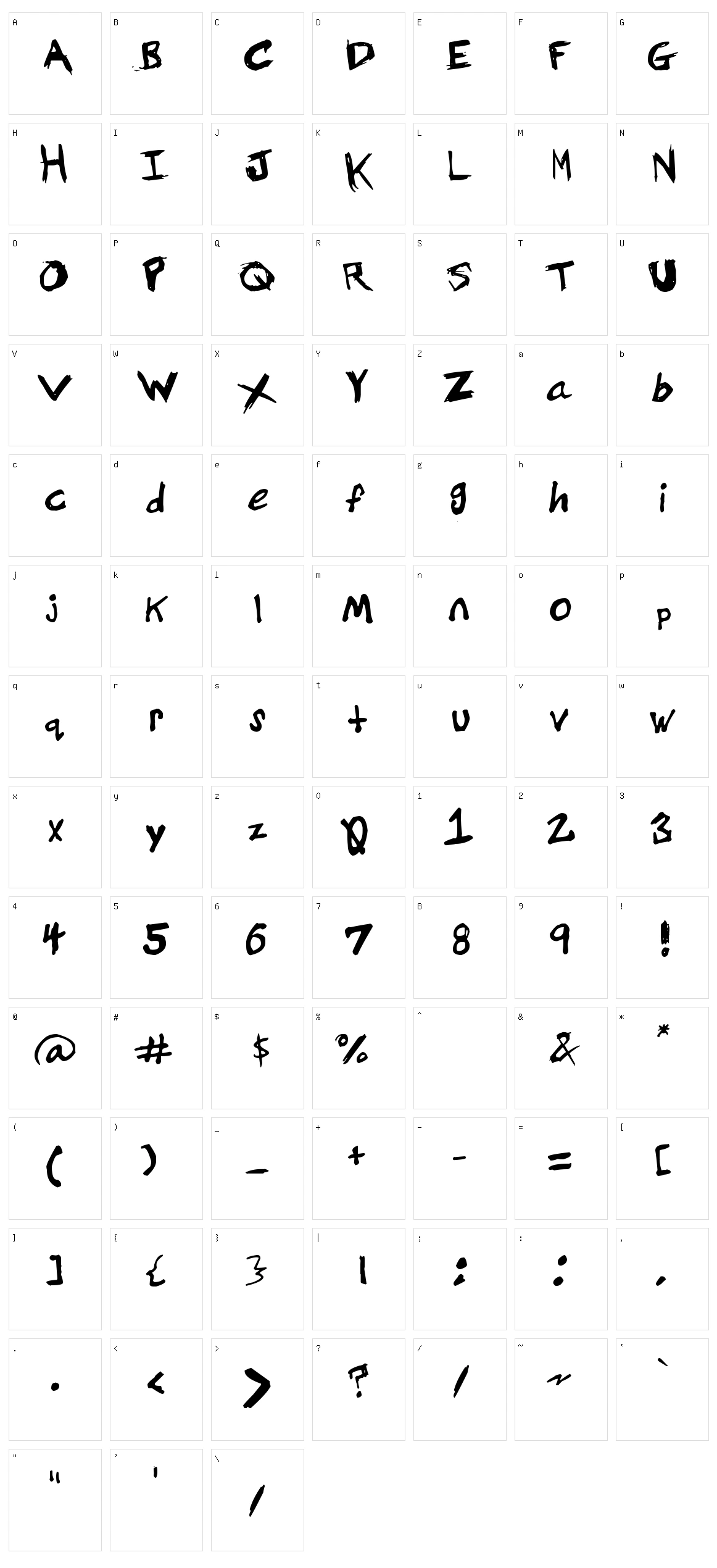
The free font Grundy is carefully designed by Brandon Burkeen, showcasing a thoughtful balance of creativity and usability and falls under the Trash font style. When you download the ZIP file, it contains only 21.06 KB of font files, making it lightweight and quick to download. Please review the license details below to understand permitted usage and distribution rights. If license information is not available, we recommend using this font for personal projects only or contacting the author directly for commercial usage permissions.